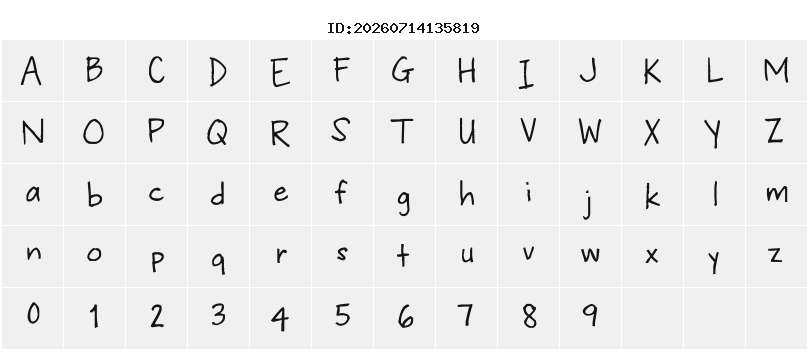
Jenn Bee Preview
• Font Name: Jenn Bee
• Full Font Name: Jenn Bee
About Jenn Bee.ttf
Jenn Bee.ttf is a modern, elegant sans-serif font designed for ultimate readability and visual harmony. Perfect for branding, headlines, web design, and print materials.